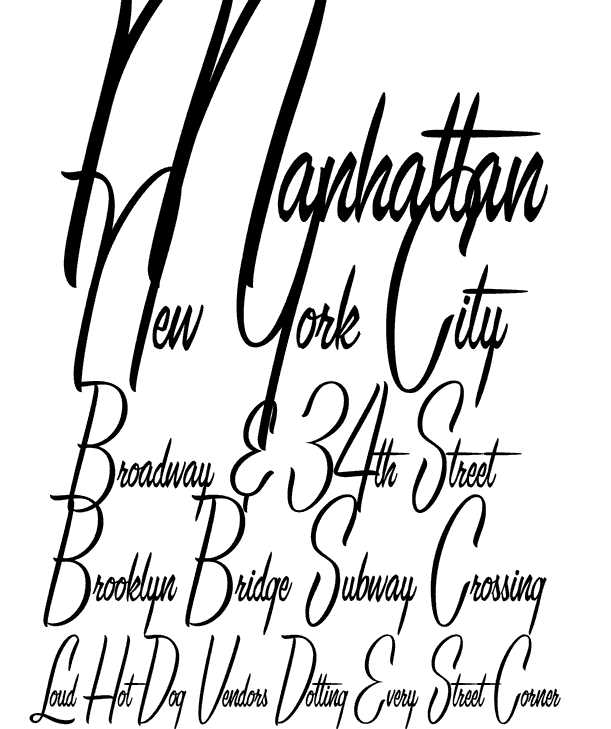
HomeFont BrosRetro (1936-1965)Leisure Script Marquee Retro (1936-1965)Special EffectScripts: Casual Leisure Script Marquee FacebookXPinterestWhatsApp 1 of 1 About Leisure Script Marquee Let \’em know your mean business with this number! Just like our Leisure Script font but with gigantic caps to let \’em know you\’re back in town!  DOWNLOAD NOW People also explored Sensations Font Tiramisu Font Ornella Extra Black Font Gelegar Expanded Font Gatezink Font David Edder Font Midmountte Font Sparcly Font Ortisan Signature 257 0 TagsLeisure Script Marquee Font Previous articleBest RegardzNext articleCapricious LEAVE A REPLY Cancel reply Comment: Please enter your comment! Name:* Please enter your name here Email:* You have entered an incorrect email address! Please enter your email address here Website: Save my name, email, and website in this browser for the next time I comment. Personal Use Free Krase Personal Use Free Read more about this font Screengem Personal Use Free Read more about this font Astercla Personal Use Free Read more about this font Baby Mollusca Personal Use Free Read more about this font BLOG How to Cut Any Font on Cricut: Convert a Font to SVG (Free) Turn any font into a clean SVG so it cuts crisp on Cricut - a quick 3-step workflow using a free font-to-SVG tool. Where to Buy American Fonts Online in 2024 Modern Sans-Serif Fonts That Brands Love in 2025 The 10 Best Handwriting Fonts to Add Personality to Your Designs